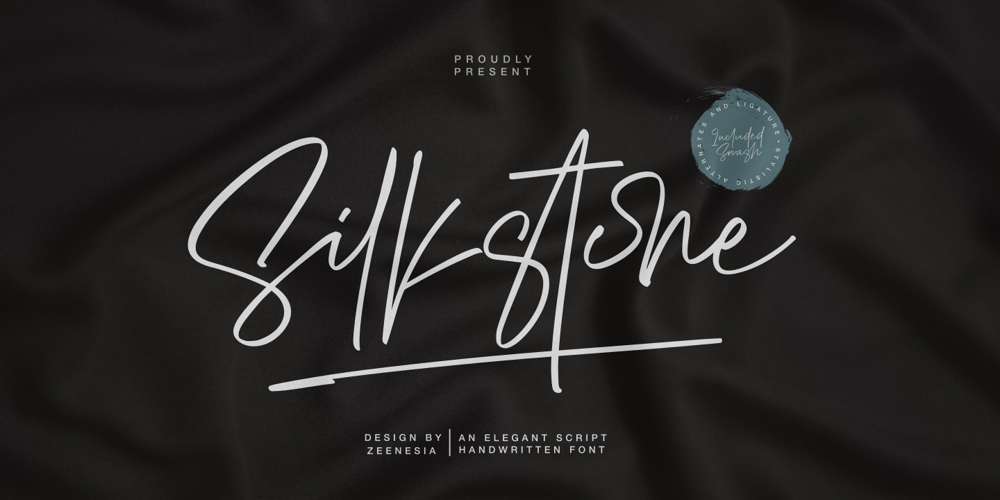
Silkstone Font Family was designed by Doni Purwoko and published by Zeenesia Studio. Silkstone contains 1 styles and family package options. Presenting!Silkstone – Handwritten ScriptFontSilkstone is a handwritten script font with a simple and classy style, this font is great for your next creative projects such as watermark on photography, logo design, wedding, invitation, quotes, book cover, business card, and many other design project. From business cards to photo watermarks.